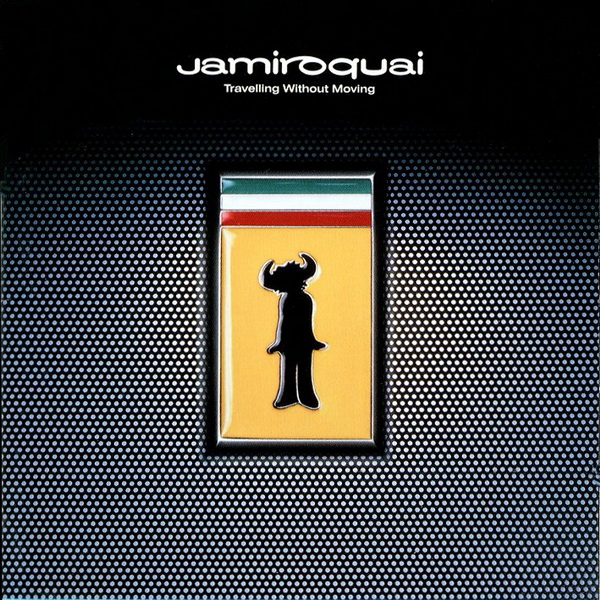
Jamiroquai Font
BandJamiroquai is a British funk and acid jazz band formed in 1992, known for its unique blend of jazz, soul, and funk music. The band has released several hit albums, including "Emergency on Planet Earth" and "Travelling Without Moving". The logo of Jamiroquai often referred to as the buffalo man or medicine man, is said to have originated from a silhouette drawn by the band's leader, Jay.